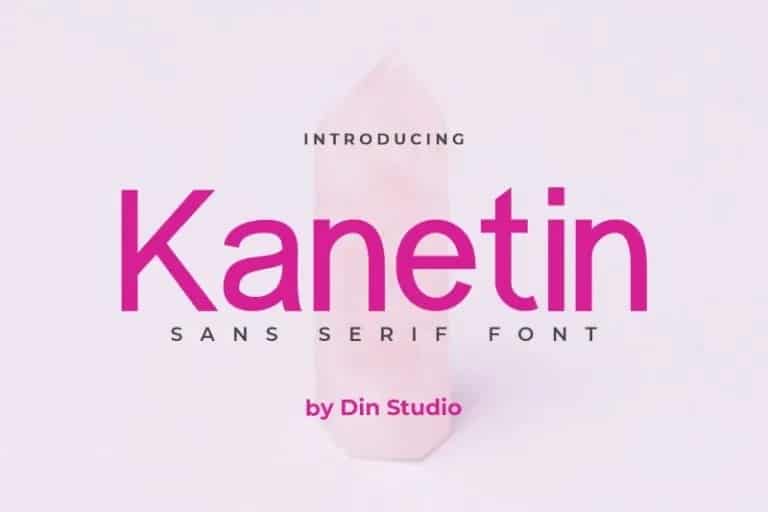
Kanetin Sans Serif Font
Kanetin Sans Serif Font is a elegant chique font for brand, logo and quotes design. Made from font designer named Din Studio. It’s a beautiful sans serif font. Made for any professional project branding. It is perfect for printing, branding and quotes. Every letter has a unique and beautiful touch. You will get classy, elegant, and certainly unique logos with this font.